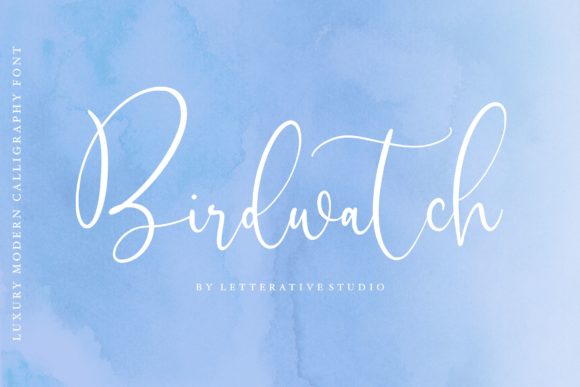
The Birdwatch Font: A Luxurious and Modern Handwritten Style
Have you ever been in the middle of a design project, and suddenly, you’re stuck on finding the perfect font? I recall a recent experience where I was working on a branding project for a high-end fashion client. The brief was to create a luxurious and modern visual identity that exuded sophistication and elegance. As I scrolled through my font library, I stumbled upon the Birdwatch font, and it instantly caught my attention.
A Personal Review of Birdwatch Font
The Birdwatch font is a handwritten font that boasts a luxurious and modern style, making it perfect for product packaging, branding projects, magazines, social media posts, wedding invitations, or simply to express words above a nice background.
What I Love About Birdwatch Font
• ✨ Luxurious and modern style: Birdwatch font has a unique, elegant feel that adds a touch of sophistication to any design project.
• ✅ Versatile: This font is perfect for various design applications, from product packaging to social media posts.
• ✅ Easy to read: Despite its elegant style, Birdwatch font remains clear and easy to read, even at smaller font sizes.
While Birdwatch font is an excellent choice for many design projects, there are a few minor quirks to consider:
• ⚠️ Limited use of OpenType features: Birdwatch font supports basic OpenType features, but it may not have the advanced features that some designers require.
• 🤔 Glyph limitations: The font has a limited number of glyphs, which might restrict its use in projects requiring a wide range of special characters.
The Designer Inspiration Behind Birdwatch Font
The Birdwatch font was designed with the intention of creating a luxurious and modern handwritten style that would cater to the needs of designers and crafters. The designer aimed to create a font that would be versatile, elegant, and easy to read. Although the exact inspiration behind the font is unclear, it’s evident that the designer was successful in creating a beautiful and functional font.
Q: What is the best use for Birdwatch font?
A: Birdwatch font is perfect for product packaging, branding projects, magazines, social media posts, wedding invitations, or simply to express words above a nice background.
Q: Does Birdwatch font support OpenType features?
A: Yes, Birdwatch font supports basic OpenType features, but it may not have the advanced features that some designers require.
Q: Is Birdwatch font suitable for body text?
A: While Birdwatch font is elegant and easy to read, it may not be the best choice for body text due to its elegant and cursive nature. It’s better suited for headings and titles.